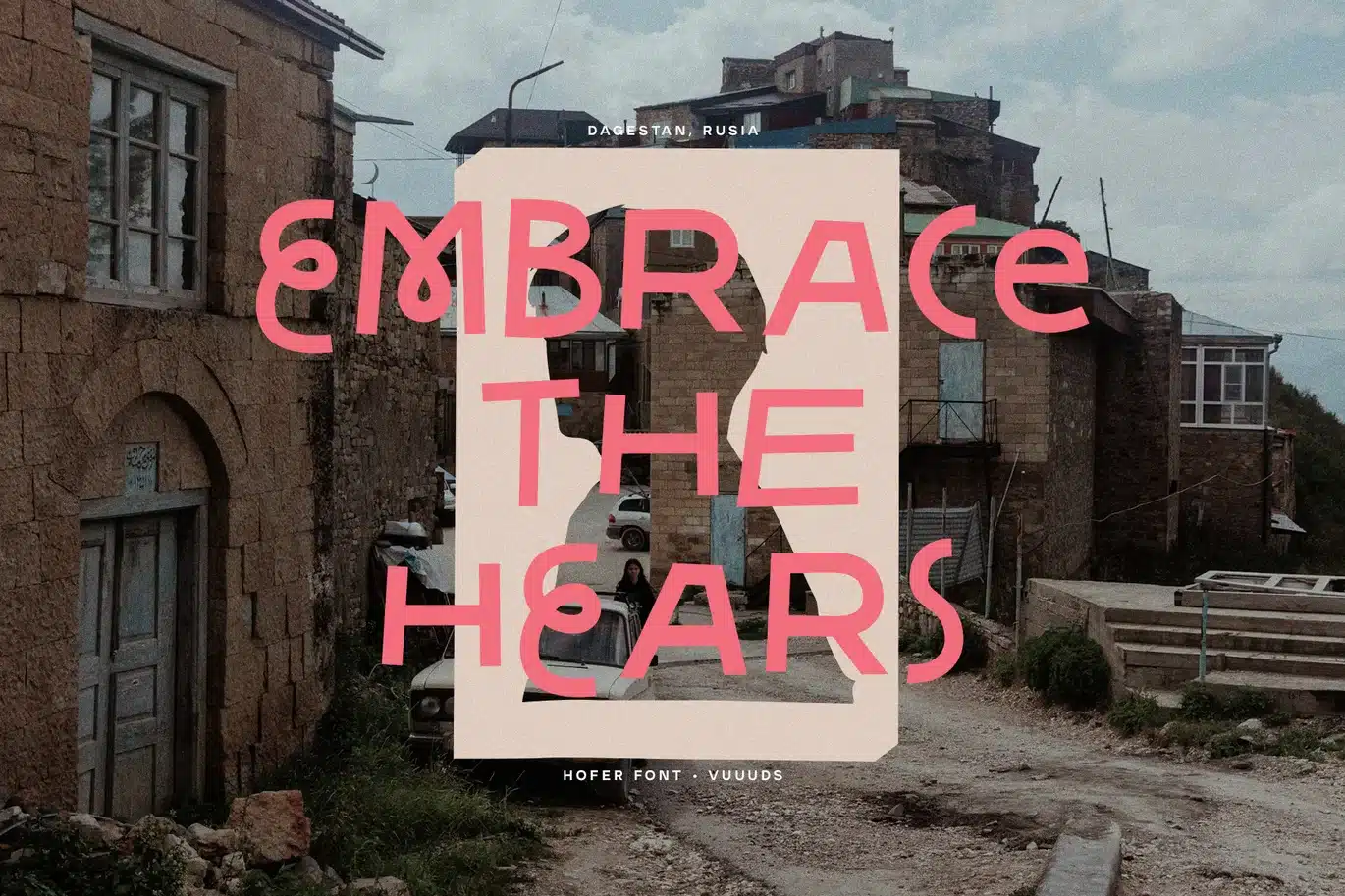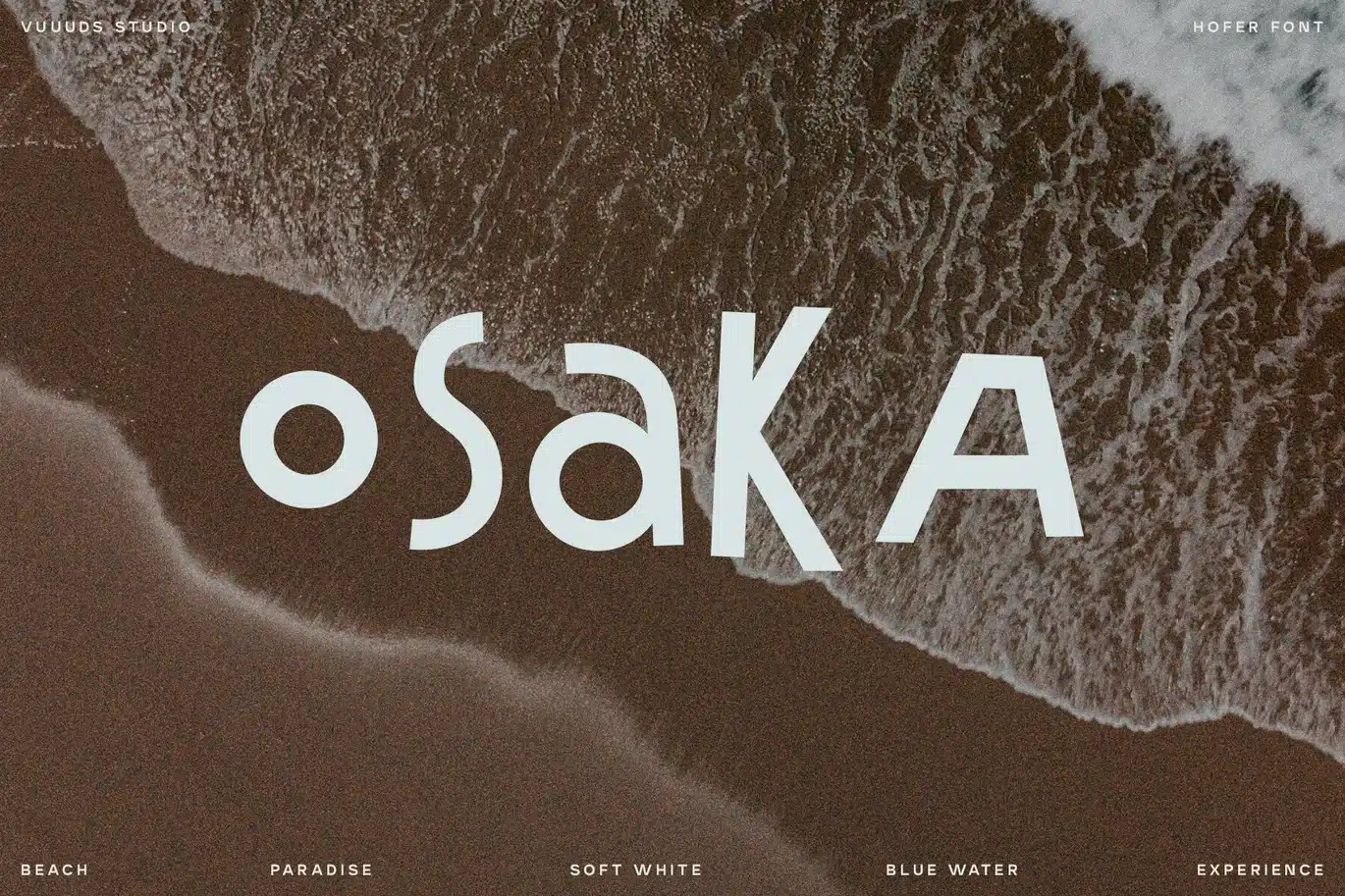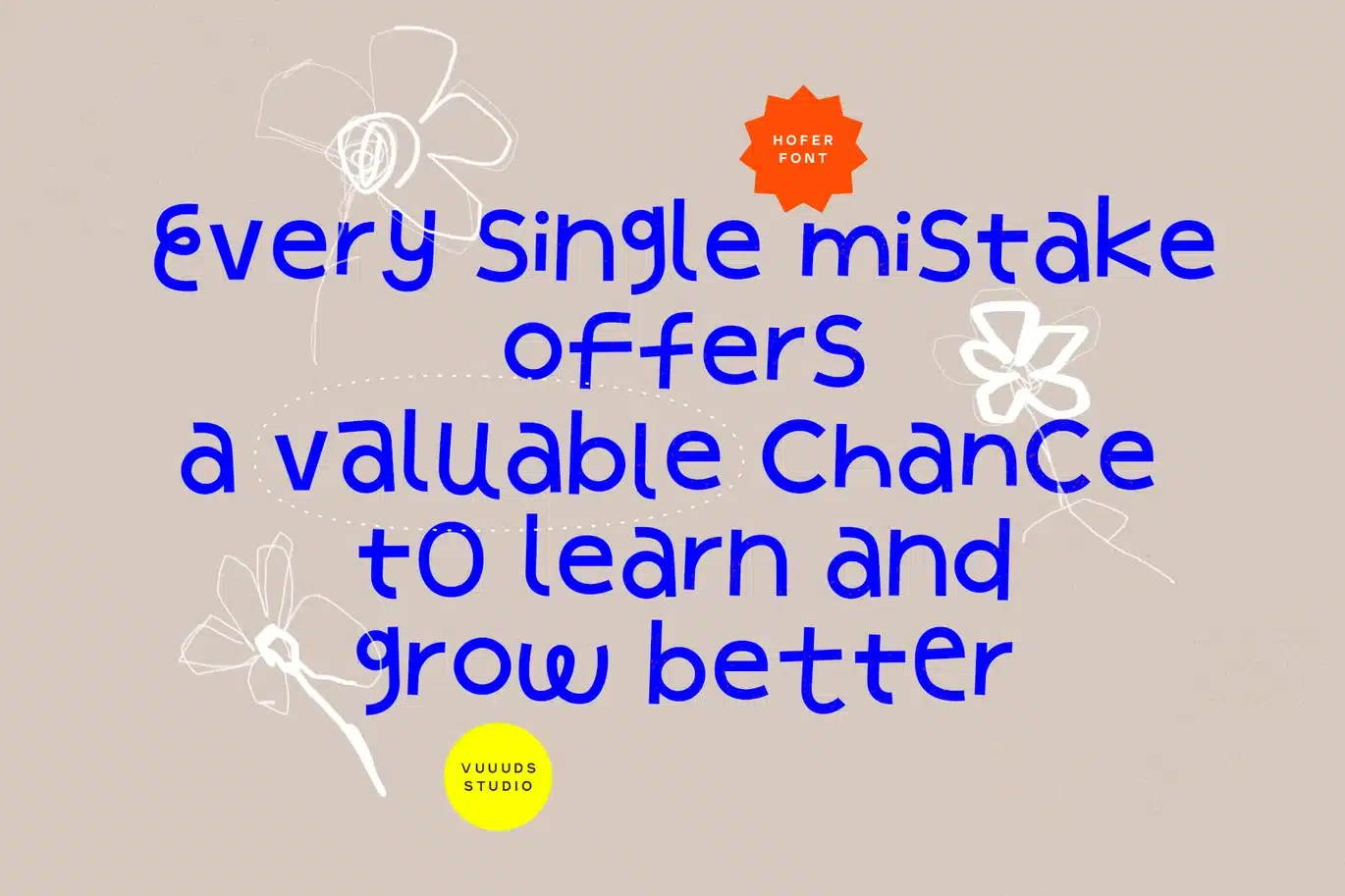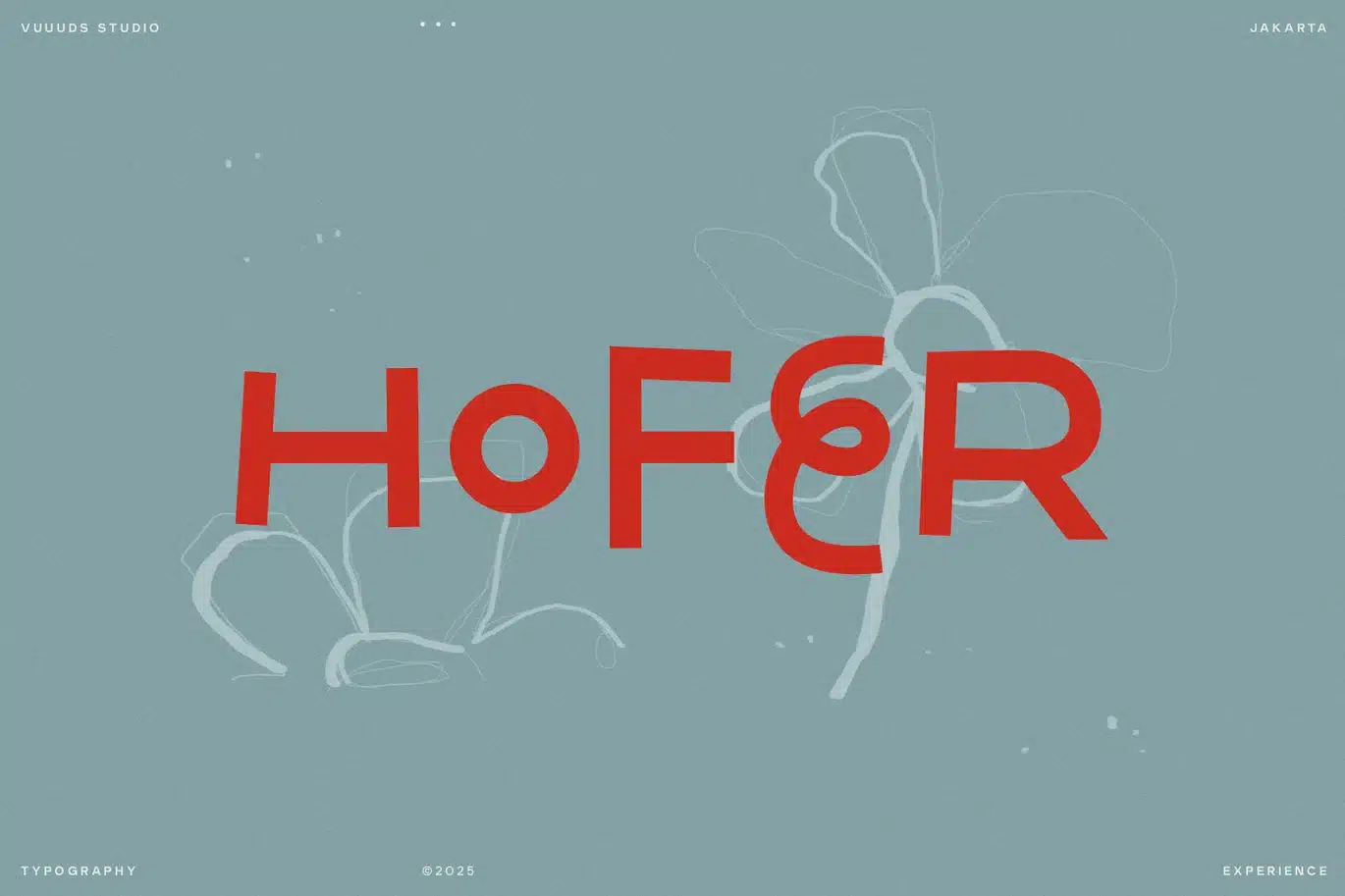
Hofer Font
Introducing Hofer Font!
Hofer is modern playful sans serif font, every single letters have been uniquely crafted.
Multi languages support:
ÀÁÂÃÄÅĂÆÇÈÉÊËÌÍÎÏÐÑÒÓÔÕÖØÙÚÛÜŸÝ
àáâãäåăæçèéêëìíîïðñòóôõöøùúûüýÿ